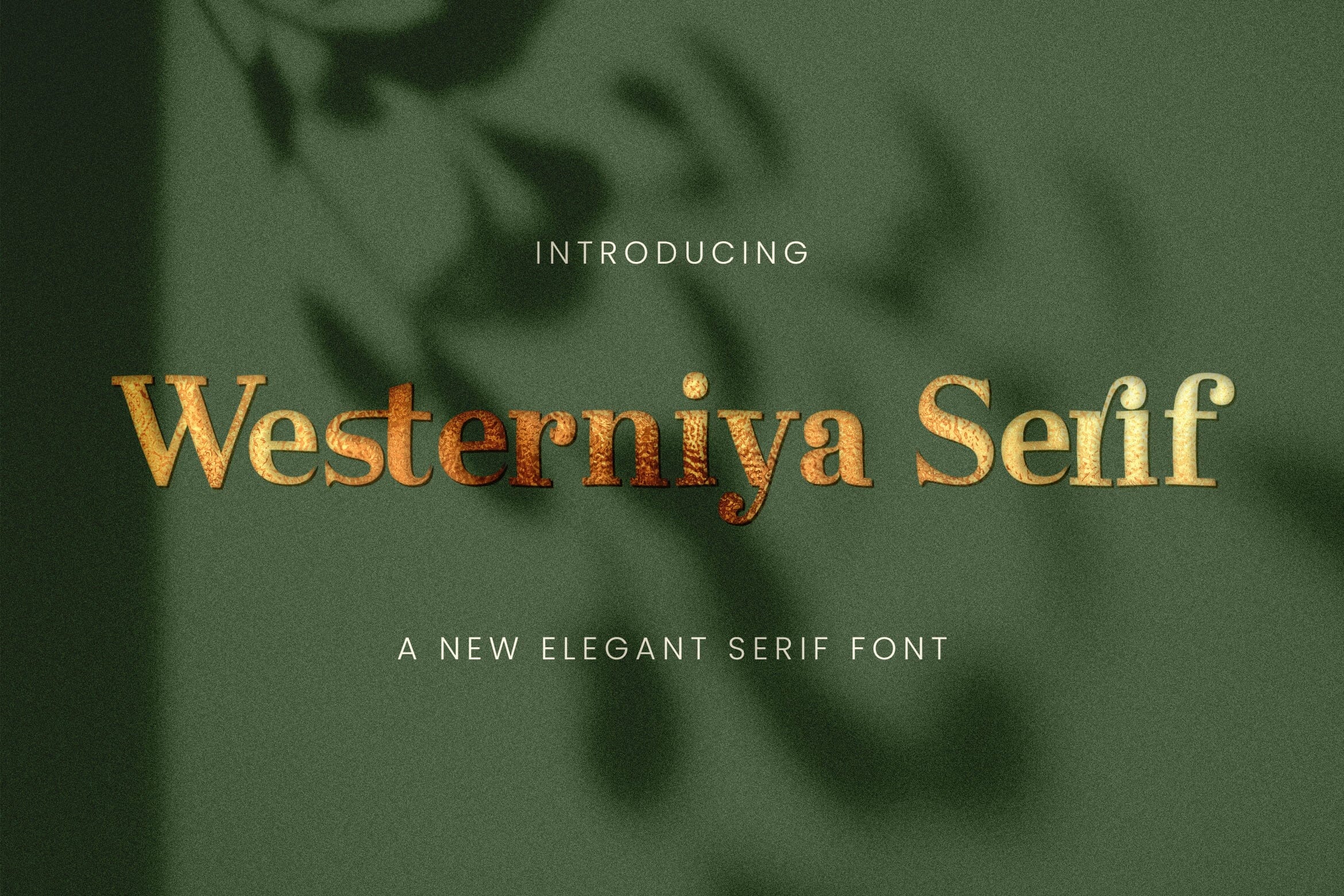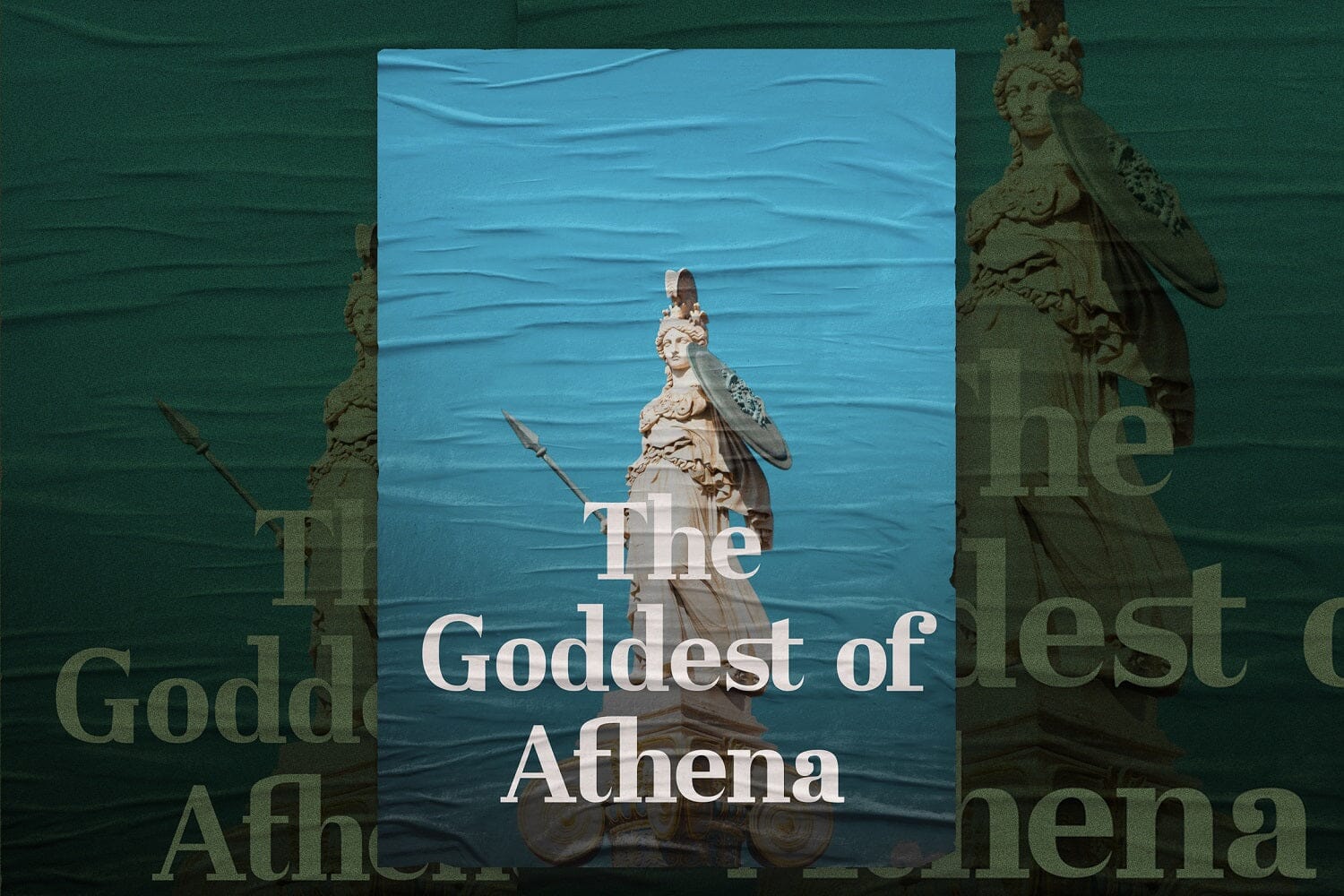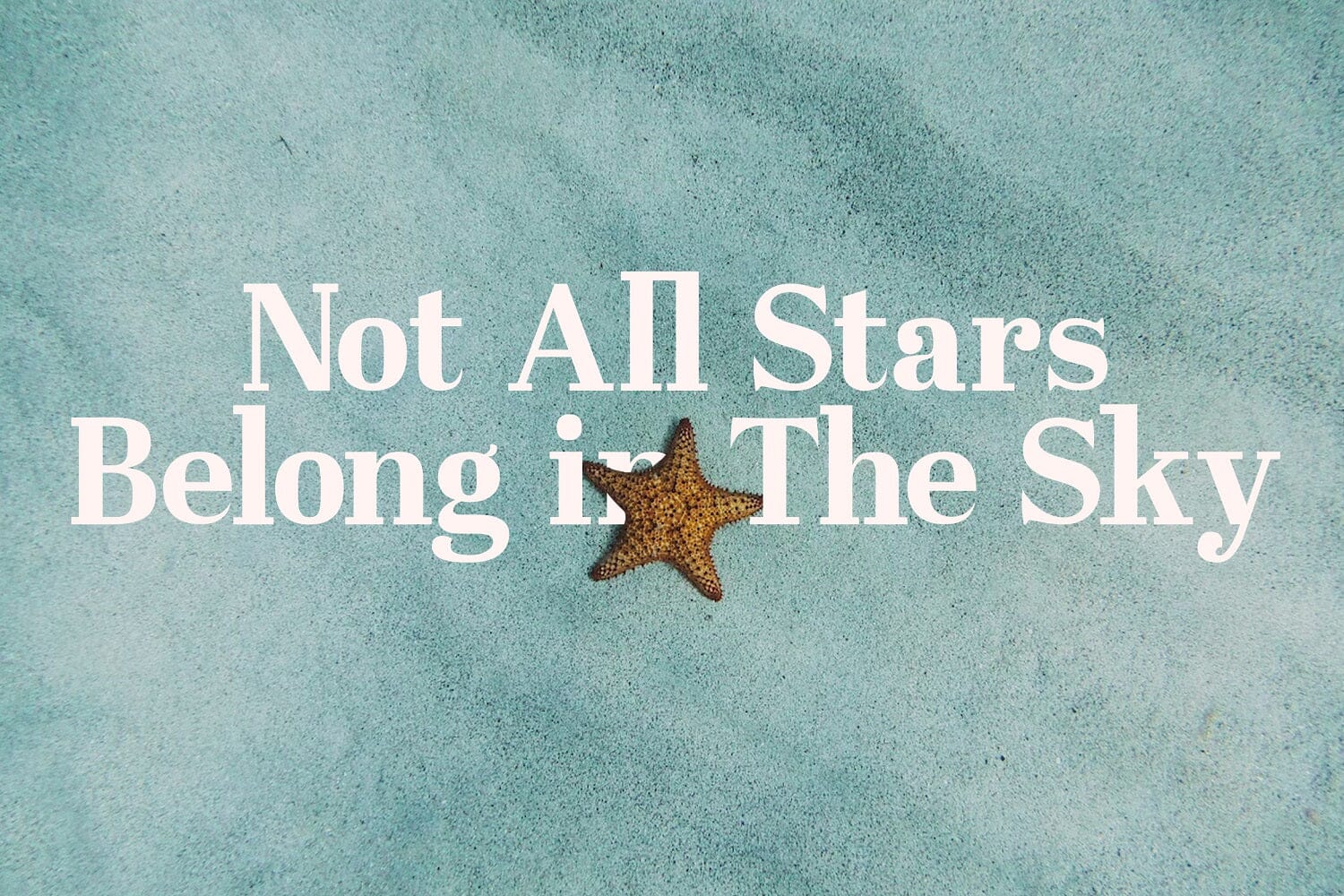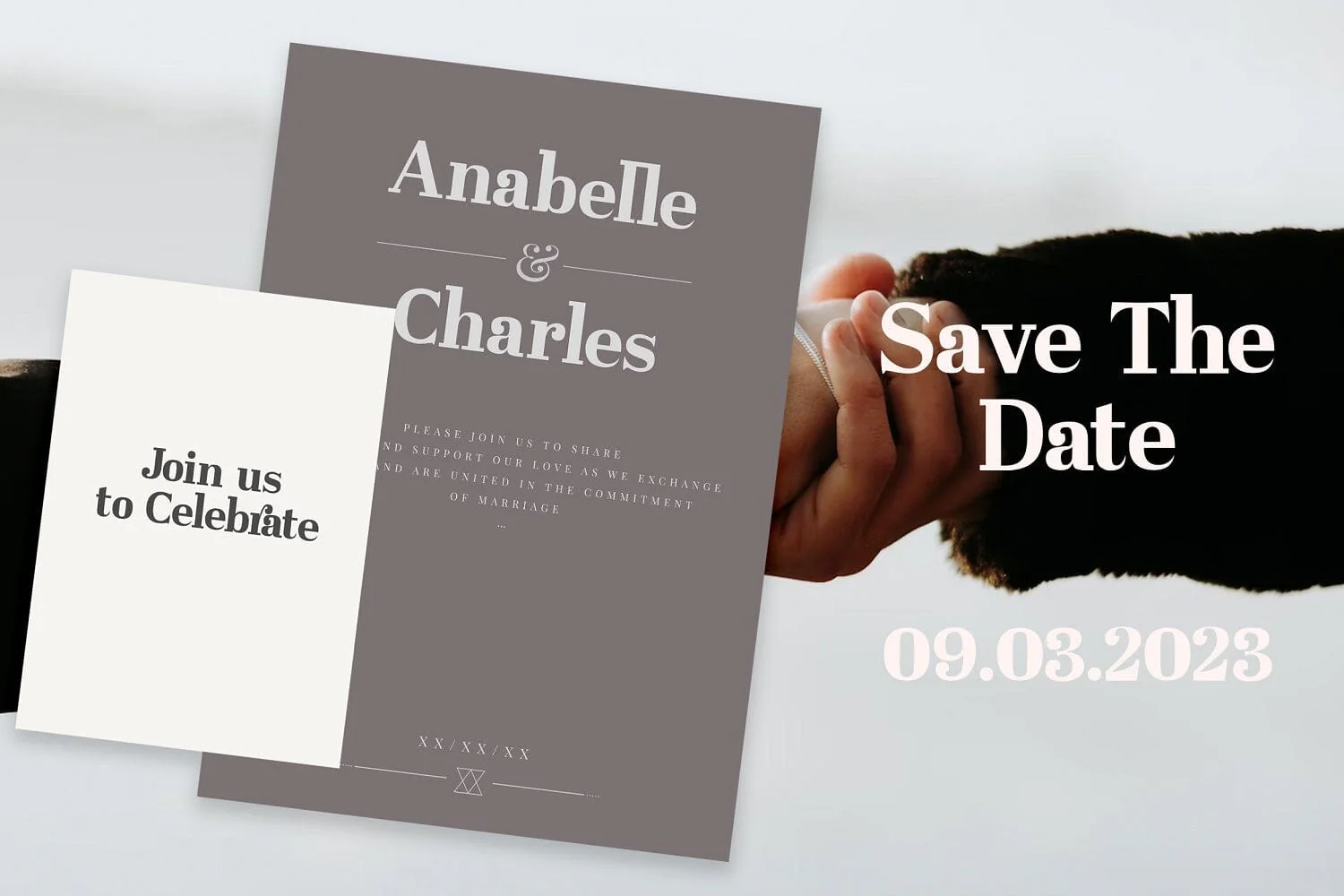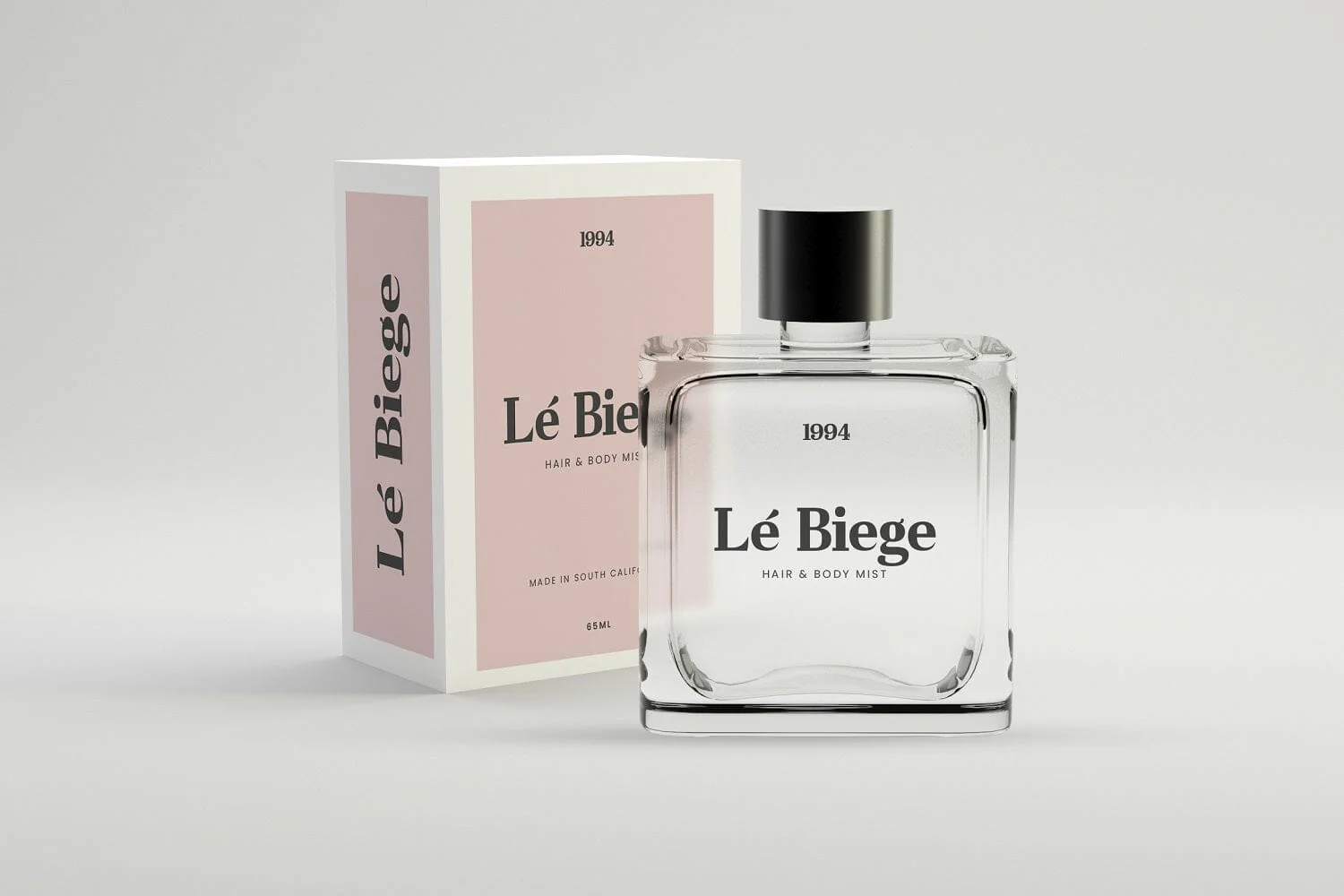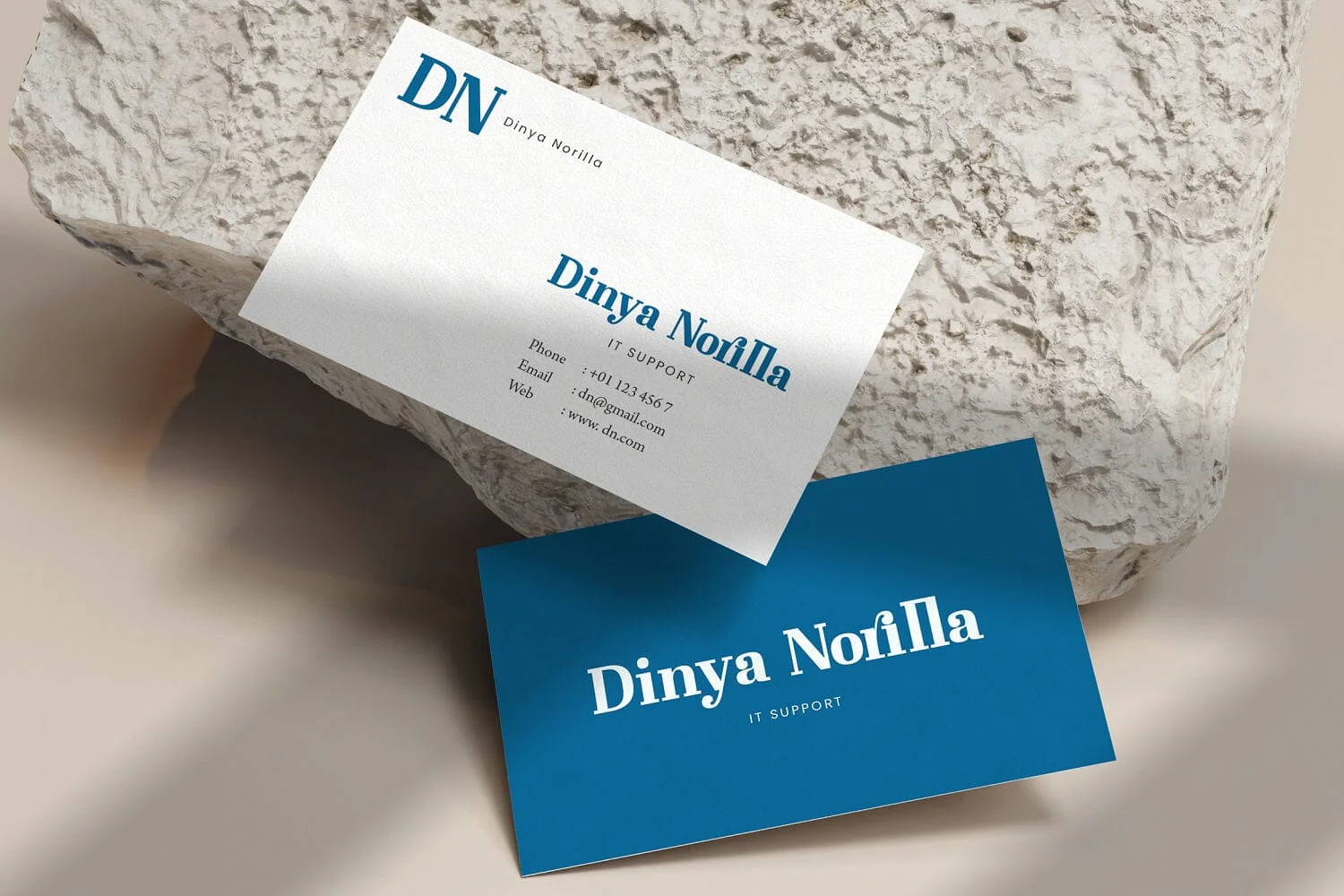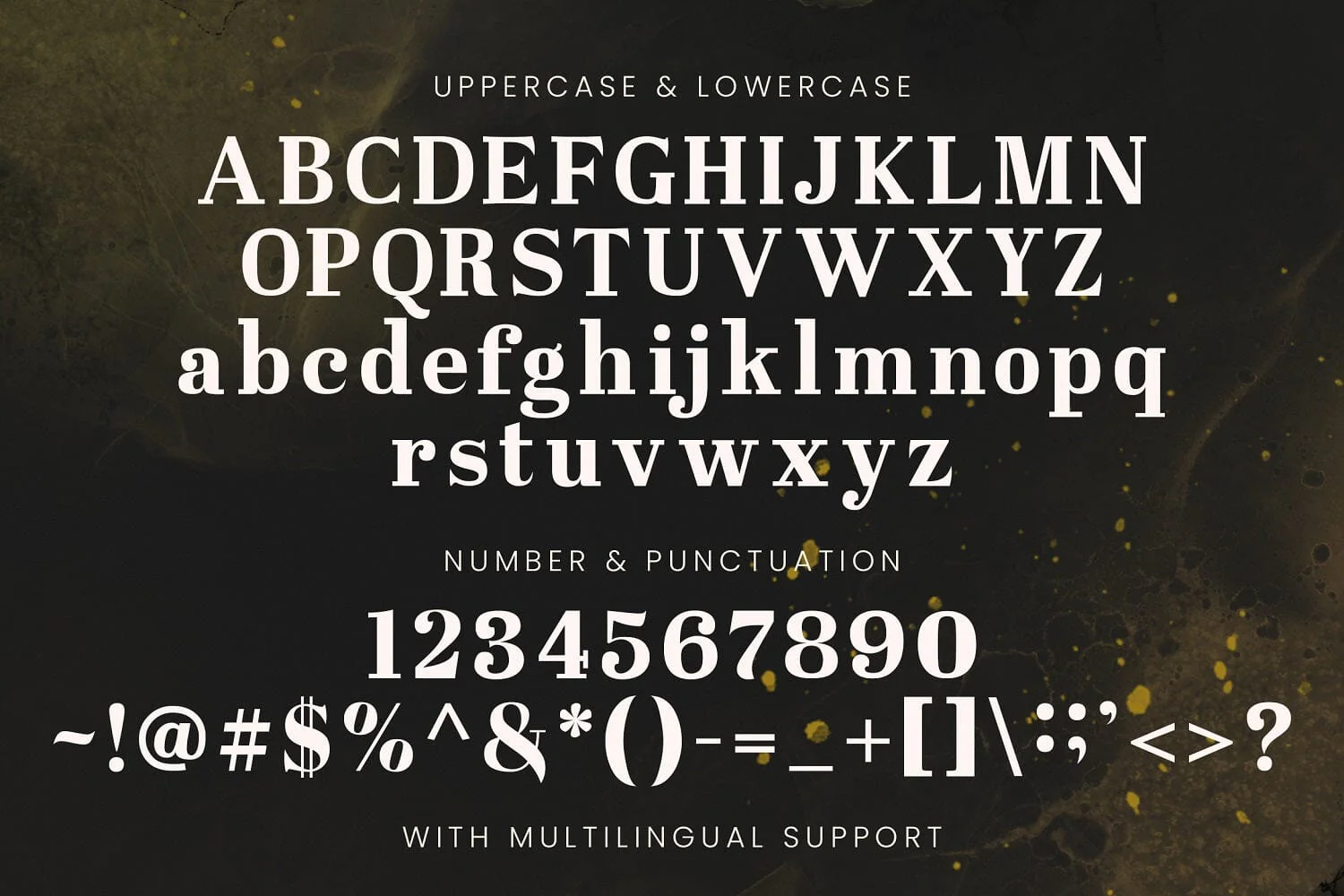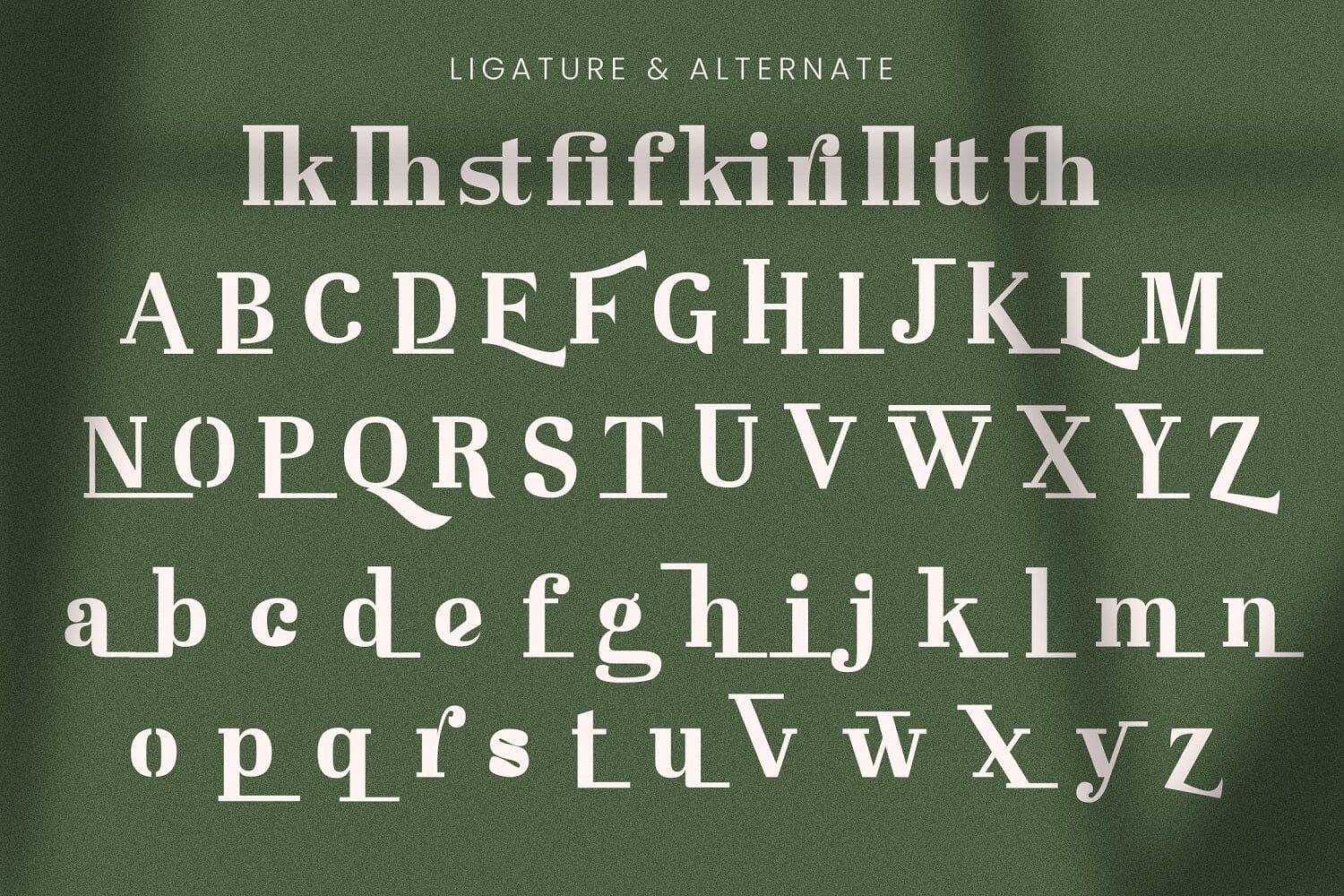
Westerniya Serif - Elegant Serif Font
Introducing Westerniya Serif - Elegant Serif Font
Westerniya Serif is an authentic and elegant serif font. It can easily be matched to an incredibly large set of projects, so add it to your creative ideas and notice how it makes them stand out!
- Alternates & Ligatures
Introducing Westerniya Serif - Elegant Serif Font
Westerniya Serif is an authentic and elegant serif font. It can easily be matched to an incredibly large set of projects, so add it to your creative ideas and notice how it makes them stand out!
- Alternates & Ligatures